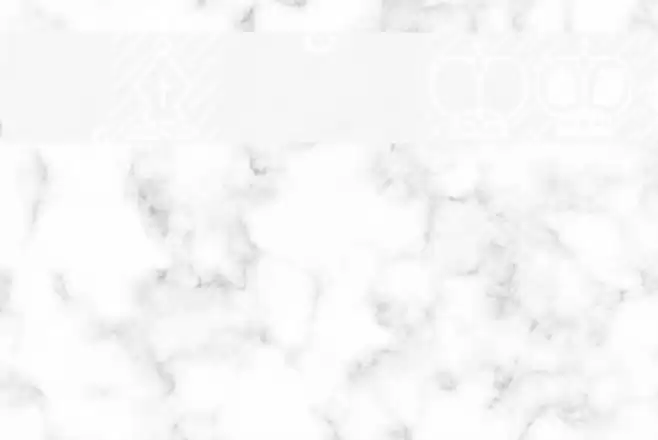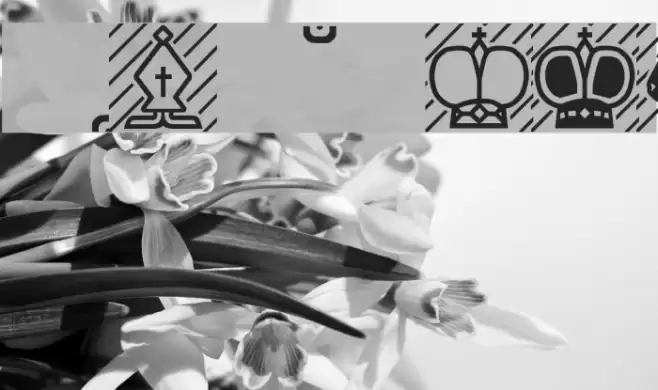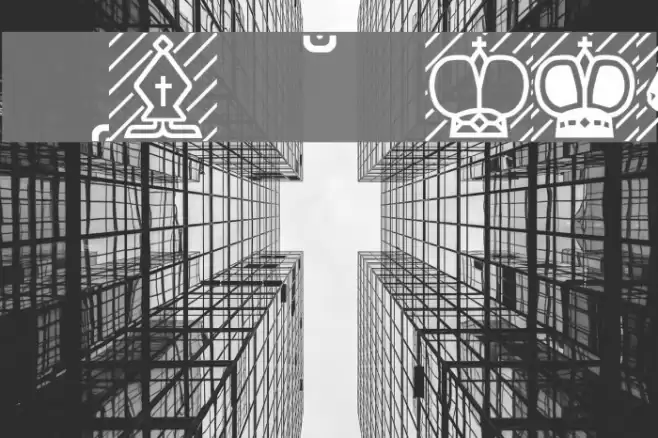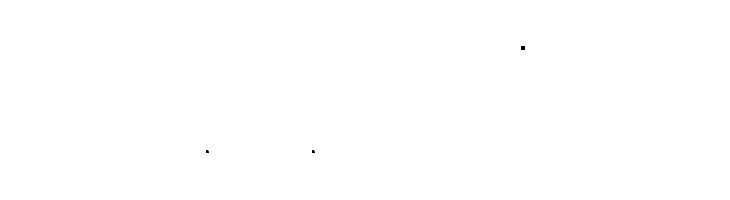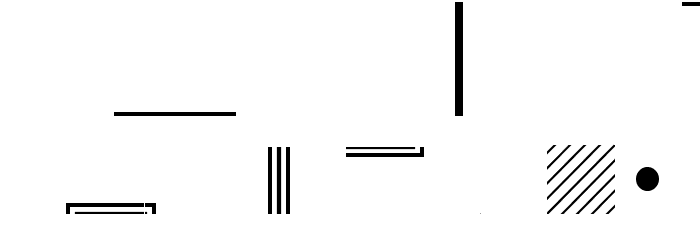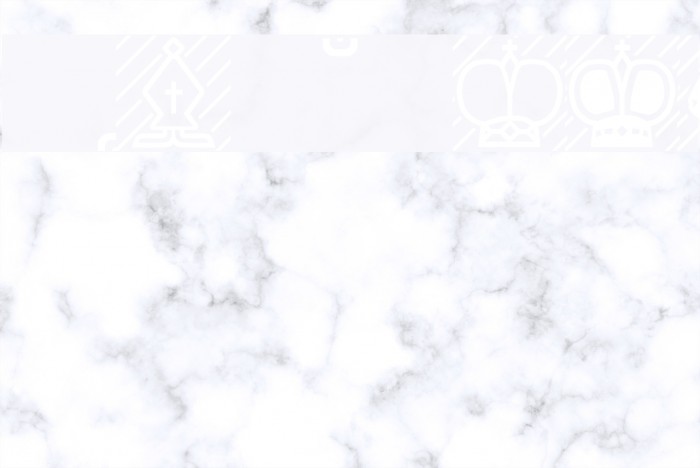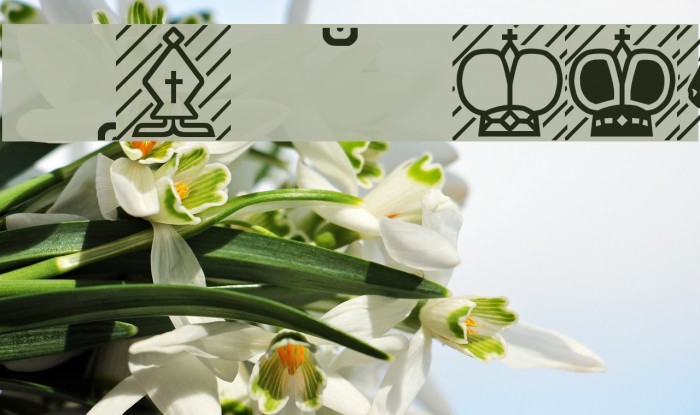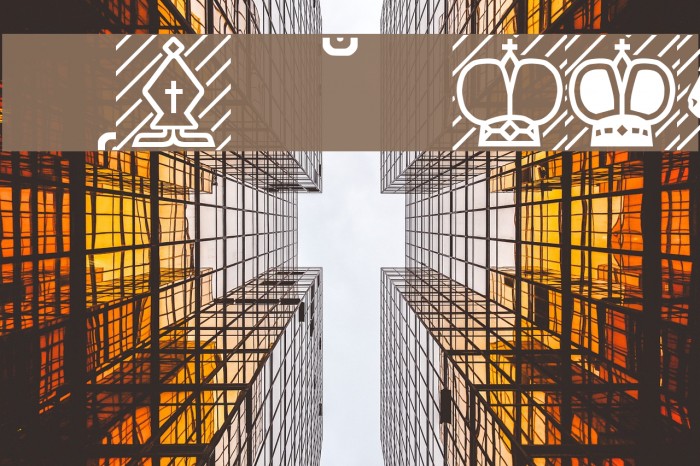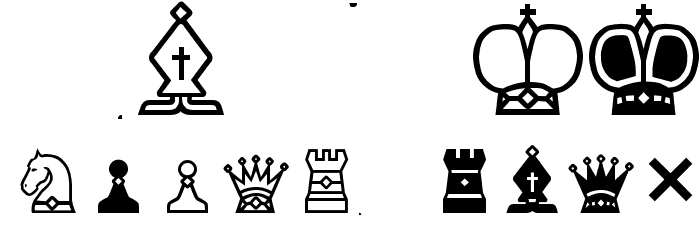
Chess-7 Font
Chess-7 Description
This set of symbols is inspired by chess pieces, featuring stylized representations of the bishop, king, queen, knight, rook, and pawn. The design incorporates bold, clean lines with a modern aesthetic, making each piece easily recognizable. The symbols are filled with solid colors and have a distinct outline, enhancing their visibility and impact. The style is consistent across all characters, providing a cohesive look. The use of diagonal lines and geometric shapes adds a dynamic element to the design, making it suitable for both digital and print media.
A modern, bold set of chess-inspired symbols with clean lines and geometric shapes from Dingbats fonts.